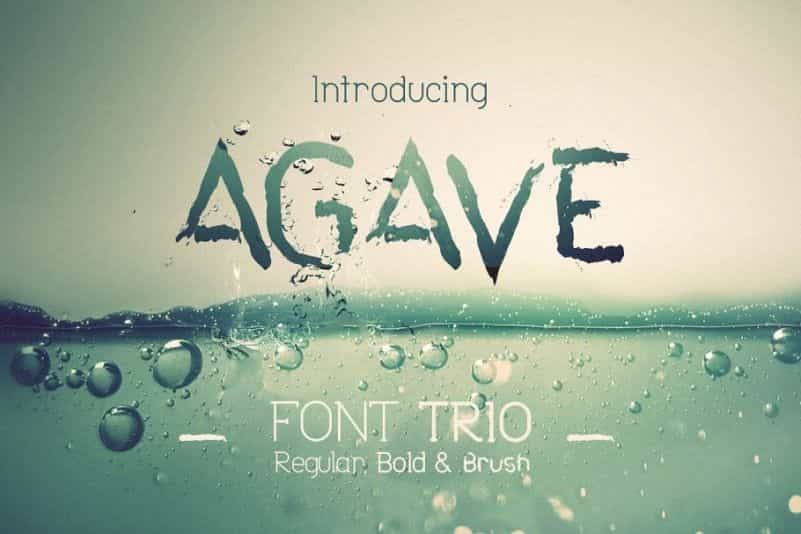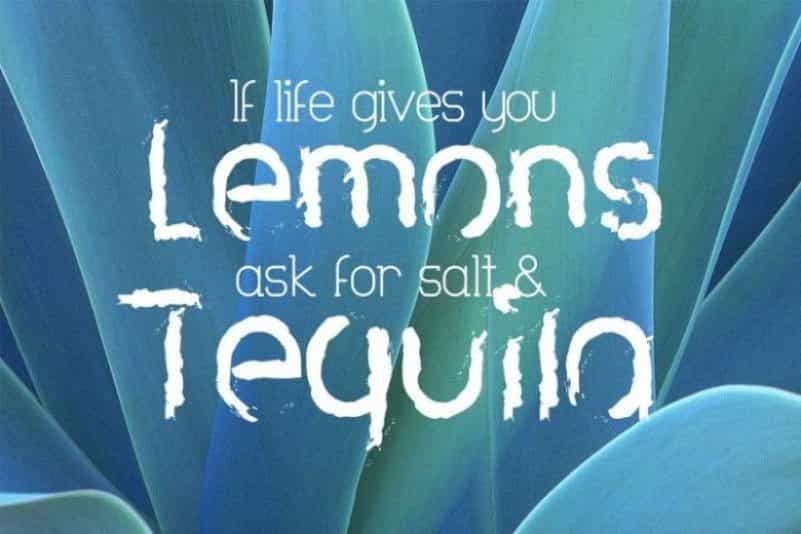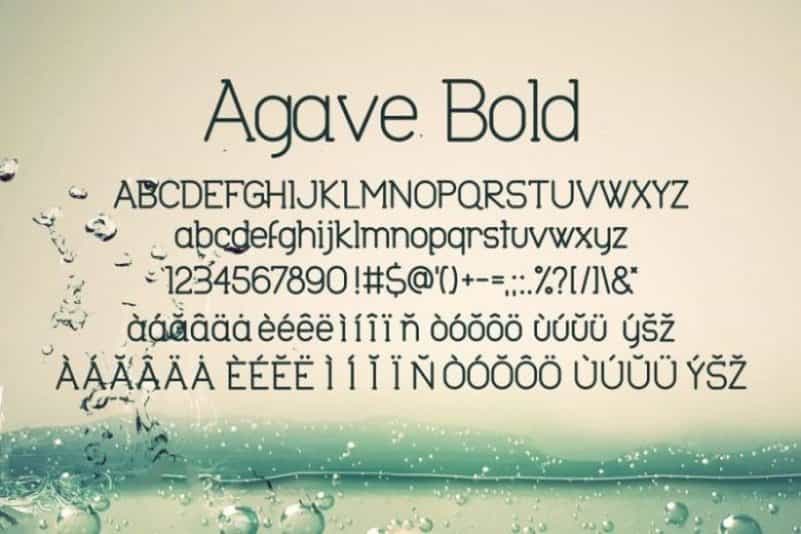
Agave Font. This product comprises 3 contrasting typeface combinations. They are all functional, and the most often they work simultaneously in various configurations. The brush font is well paired with other two Regular and Bold styles. designed especially for covers, game design, posters, web design, branding, illustrations, badges and all the works that are related to children.